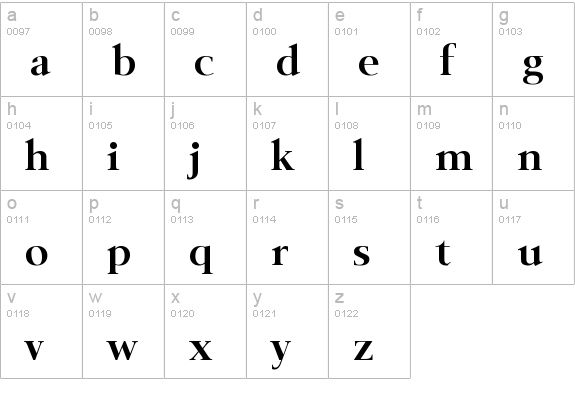
BelfastSerial-Bold is a strong, high-contrast variant in the BelfastSerial typeface family \xE2\x80\x94 well suited to headlines, attention-grabbing titles, and strong calls-to-action.
BelfastSerial-Bold is a striking and modern font that exudes confidence and style. Its bold and clean lines make it perfect for headlines, titles, and branding projects that require a strong and impactful typeface. This versatile font is sure to make a statement and capture the attention of your audience. Best of all, BelfastSerial-Bold is available for free download at FontsMarket.com. Now you can enjoy the sleek and professional look of this font without any cost. Don't miss out on the opportunity to elevate your designs with this stunning typeface that is both bold and beautiful. Download BelfastSerial-Bold today and take your projects to the next level.